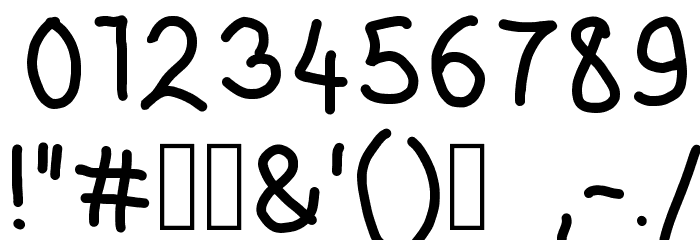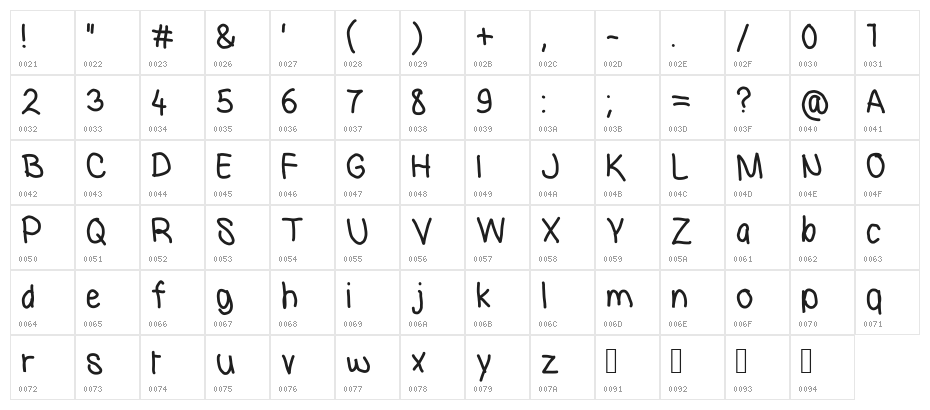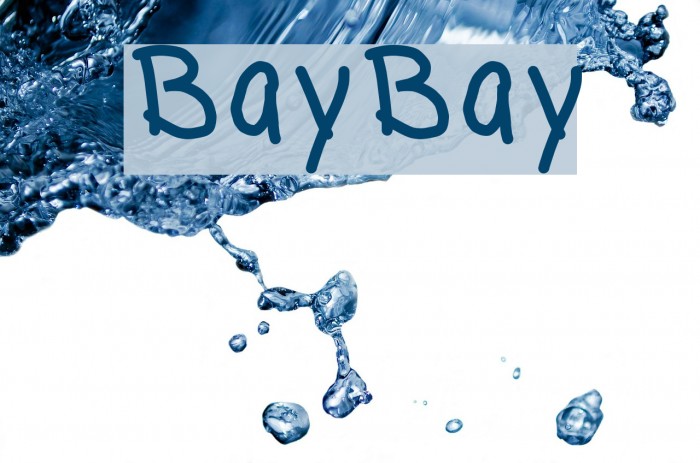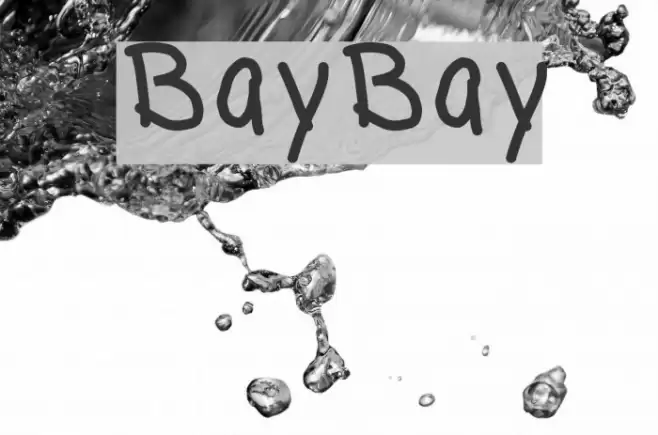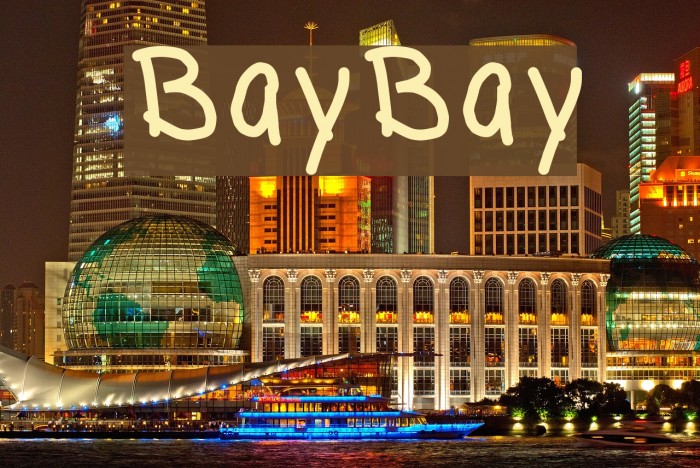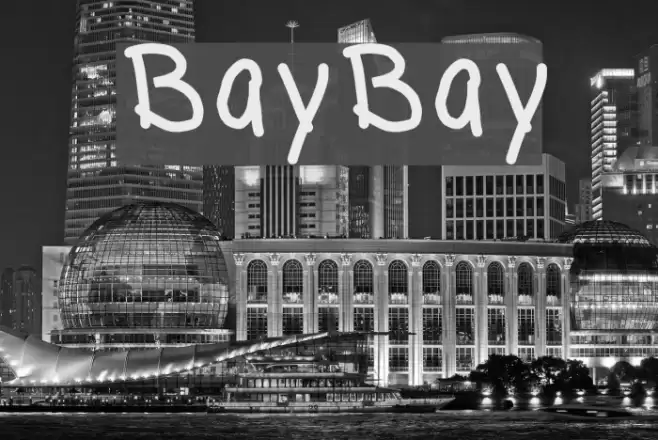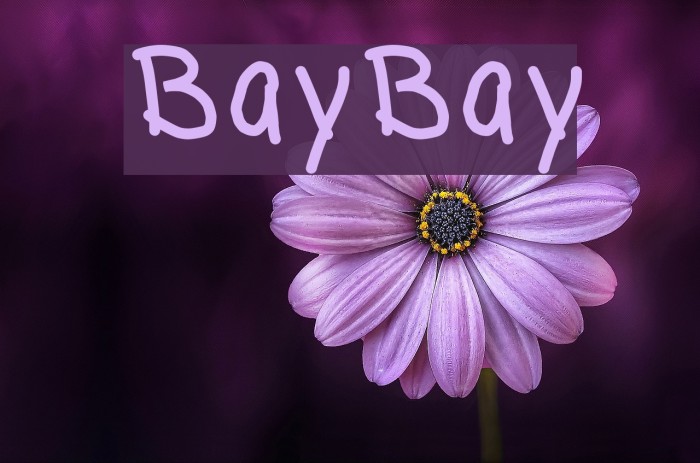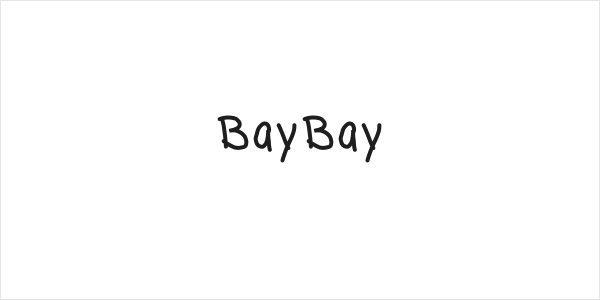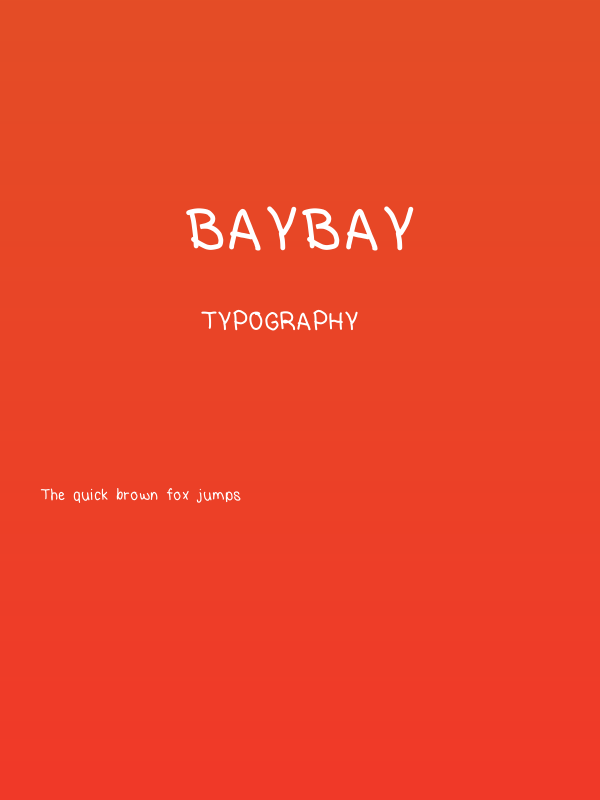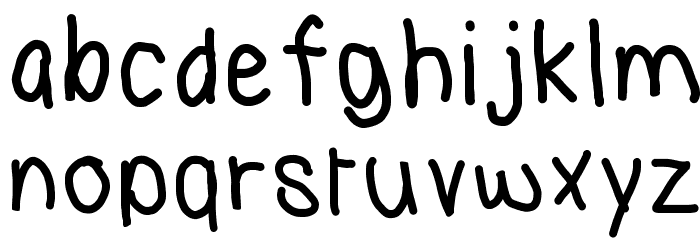
BayBay Font
BayBay Description
This playful and casual font features a handwritten style with a friendly and approachable appearance. The letters are slightly irregular, giving it a personal touch that mimics natural handwriting. The strokes are consistent in thickness, providing a uniform look across all characters. The uppercase and lowercase letters are well-balanced, with rounded edges that enhance its informal charm. The numerals and special characters maintain the same playful aesthetic, making it versatile for various uses. This font is ideal for projects that require a warm and inviting feel, such as children's books, greeting cards, or informal branding.
| Proposed Projects | Children's books, greeting cards, informal branding, personal blogs, and creative projects. |